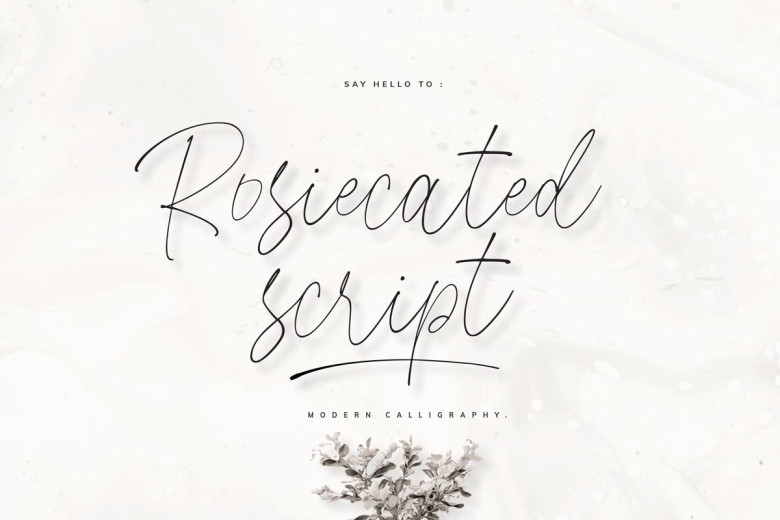
Rosiecated Handwritten Script Font
Introducing our New Collection, It’s really pretty and sweet. Let’s call Rosiecated Font, she’s a stylish modern handwritten with casual chic flair. Trendy and feminine style. Our font will be advocates for purposes such as wedding invitations, thank you cards, quotes, greeting cards, logos, business cards, party, graduation, birthday, gathering, etc.